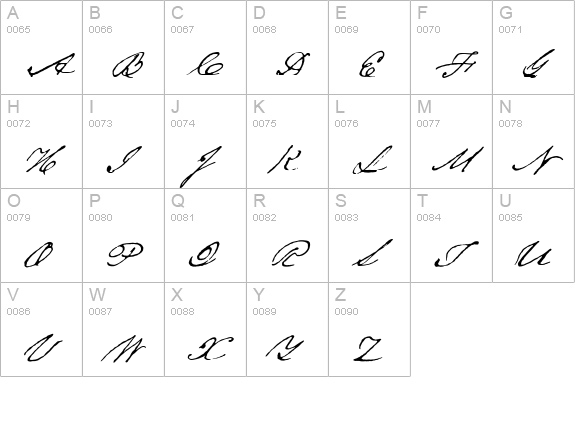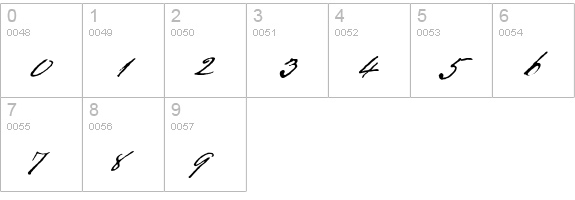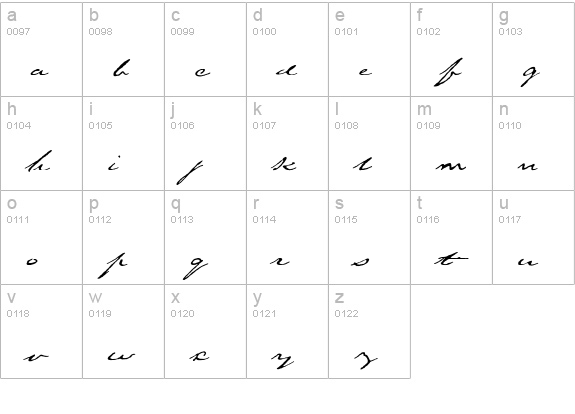
TexasHeroBETA Medium Font Details
TexasHeroBETA Medium is a balanced, medium-weight variant in the TexasHeroBETA typeface family \xE2\x80\x94 well suited to sub-headlines, navigation, and balanced editorial work.
TexasHeroBETA Medium is a dynamic and bold font that exudes a sense of strength and determination. With its clean lines and powerful presence, this font is perfect for making a statement in your designs. Whether you are creating a logo, poster, or heading, TexasHeroBETA Medium will give your text that extra edge. What sets TexasHeroBETA Medium apart is not just its striking appearance, but also the fact that it is available for free. Yes, you read that right – this incredible font is freely available to download at FontsMarket.com. Now you can add a touch of Texas-inspired flair to your projects without breaking the bank. Designed with versatility in mind, TexasHeroBETA Medium can be used for a wide range of purposes. Its commanding presence makes it ideal for headlines and titles, while its legibility ensures that your message comes across loud and clear. Whether you're designing for print or web, this font will make a lasting impression. The carefully crafted letterforms of TexasHeroBETA Medium give it a unique character that stands out from the crowd. Its strong and bold strokes make it instantly recognizable, while its subtle details add depth and dimension. This font is a true testament to the spirit of Texas – bold, proud, and free. So why wait? Download TexasHeroBETA Medium now and unleash its power in your designs. Whether you're creating a poster for a rodeo event or designing a website for a Texas-based business, this font will elevate your work to new heights. Get it for free at FontsMarket.com and let TexasHeroBETA Medium be your heroic companion in design.